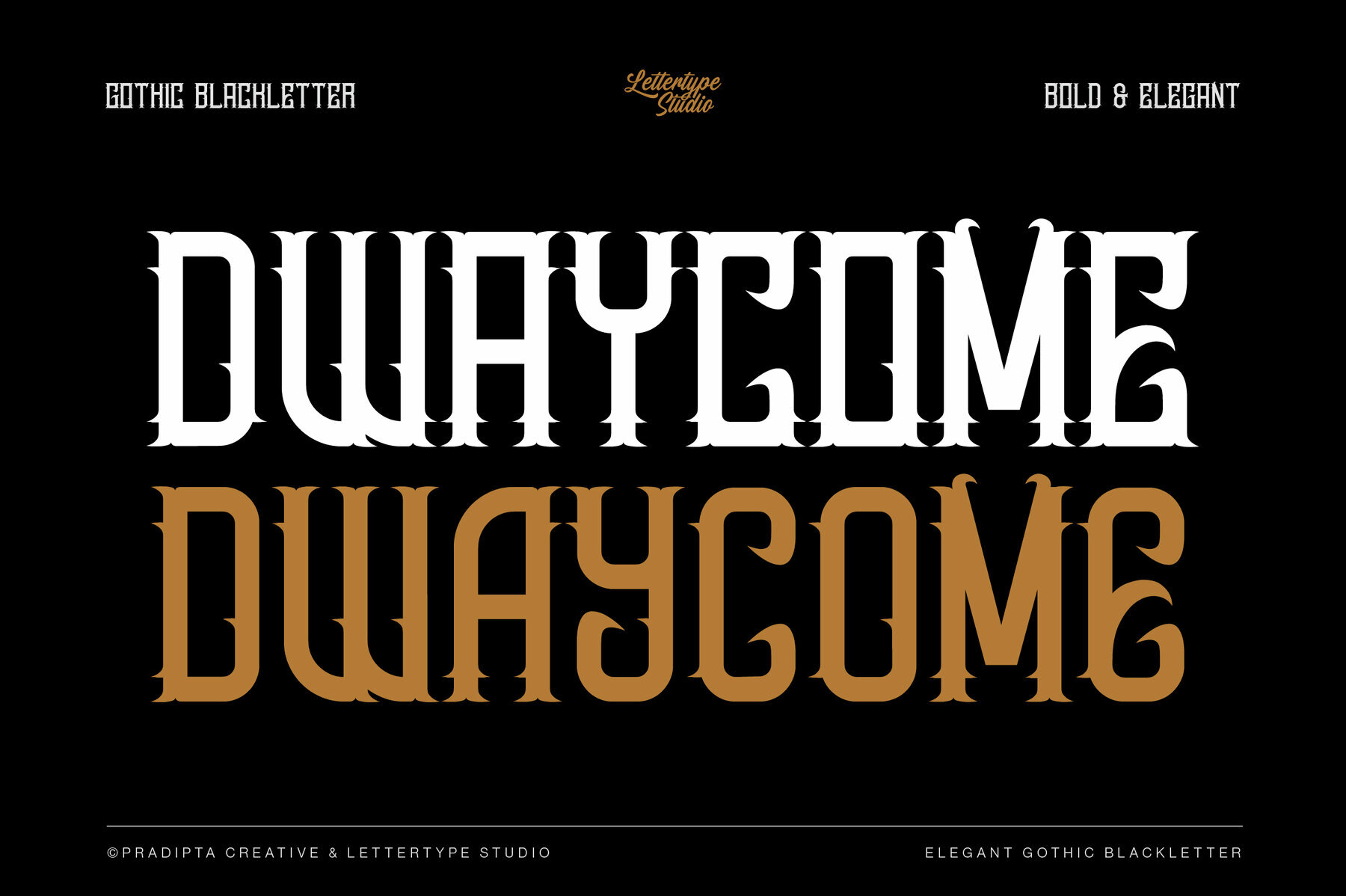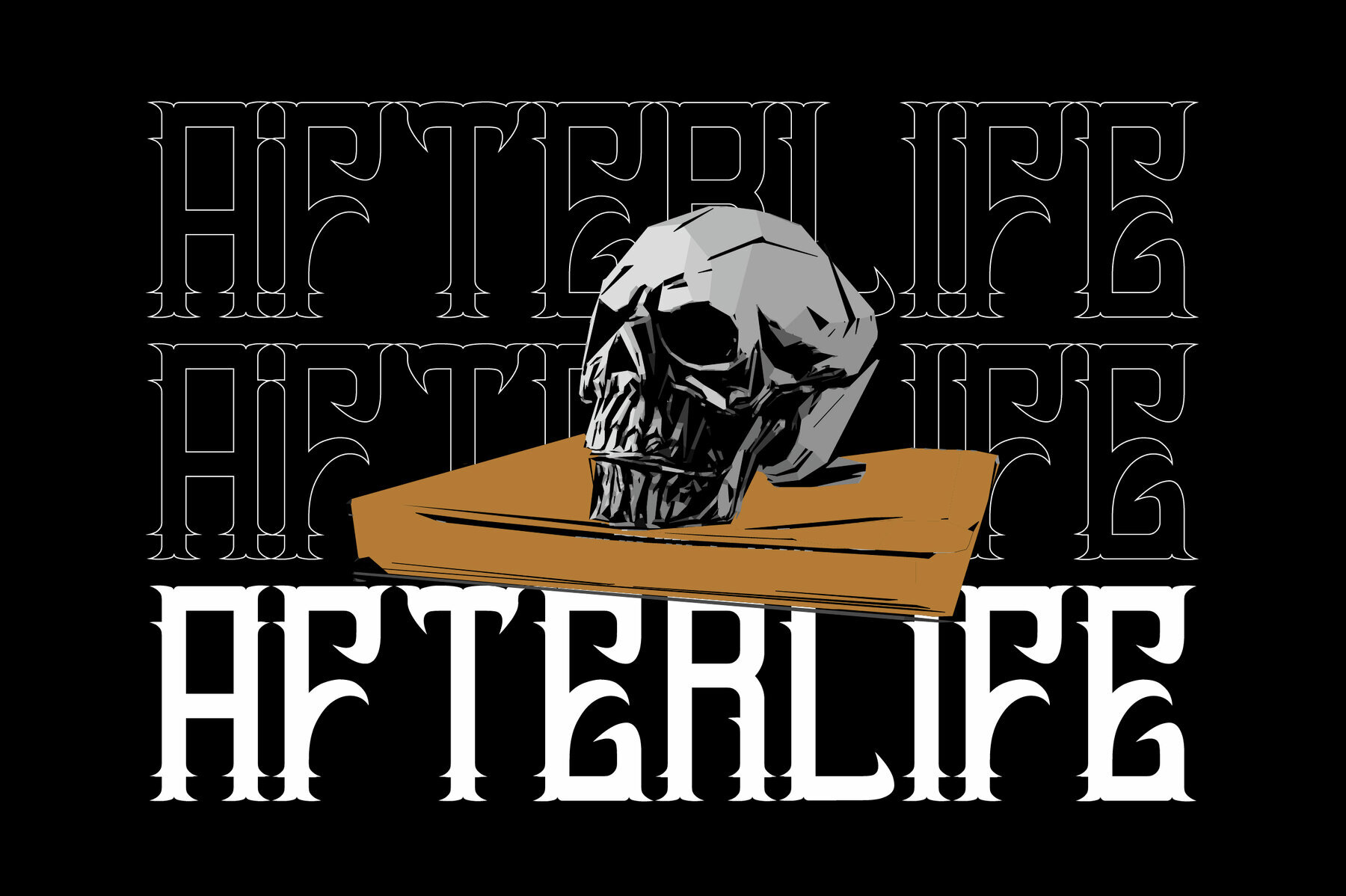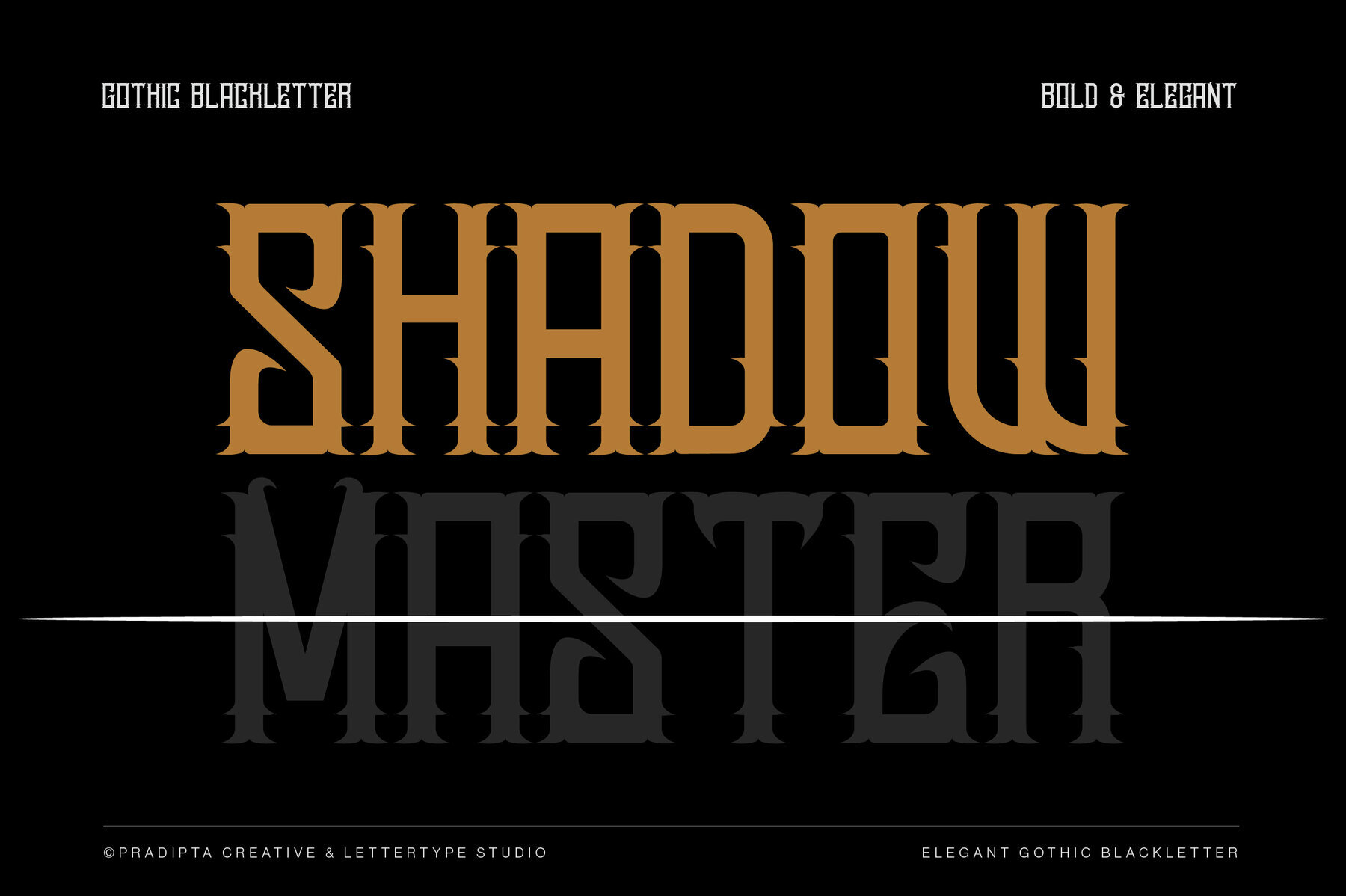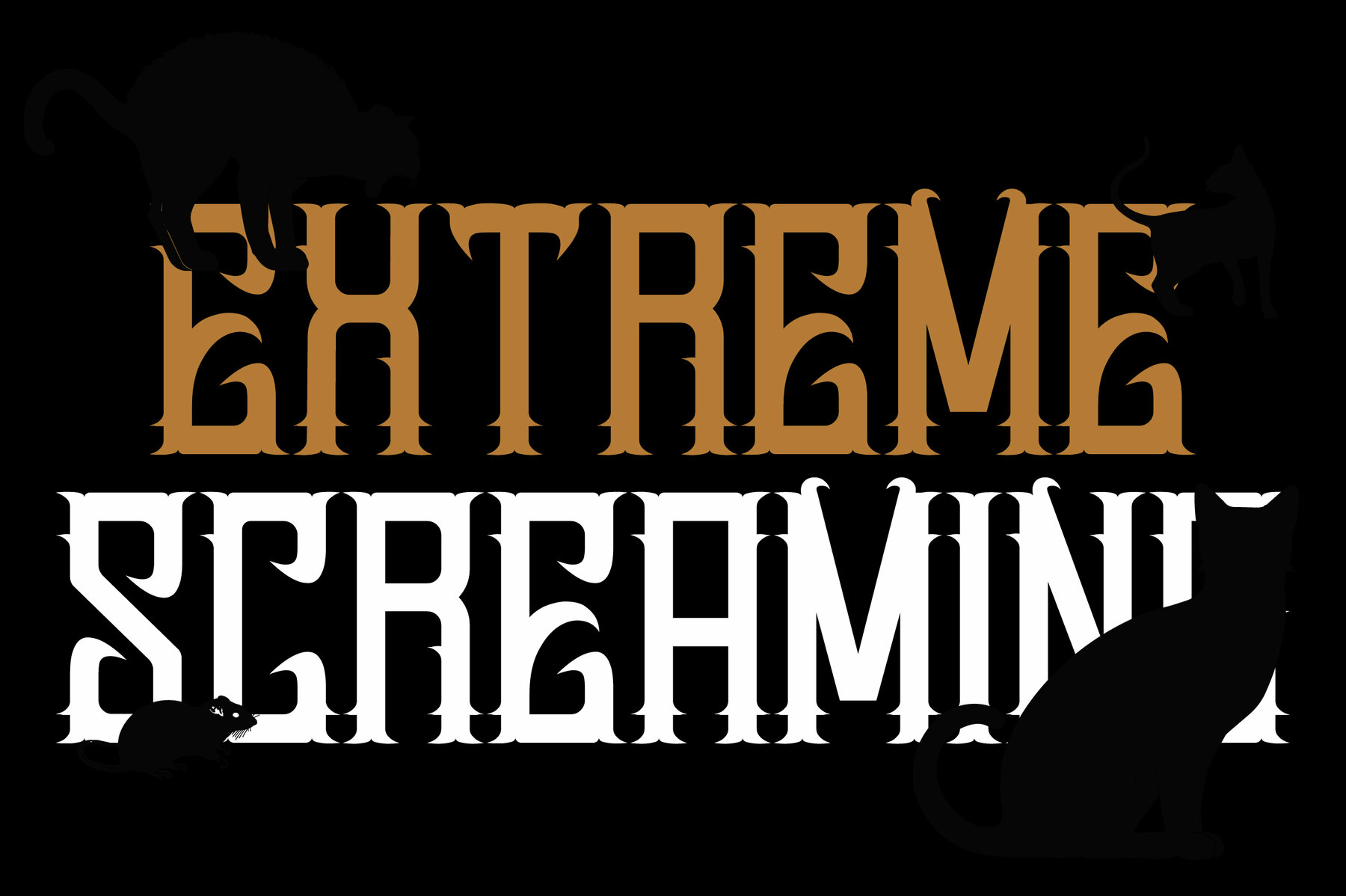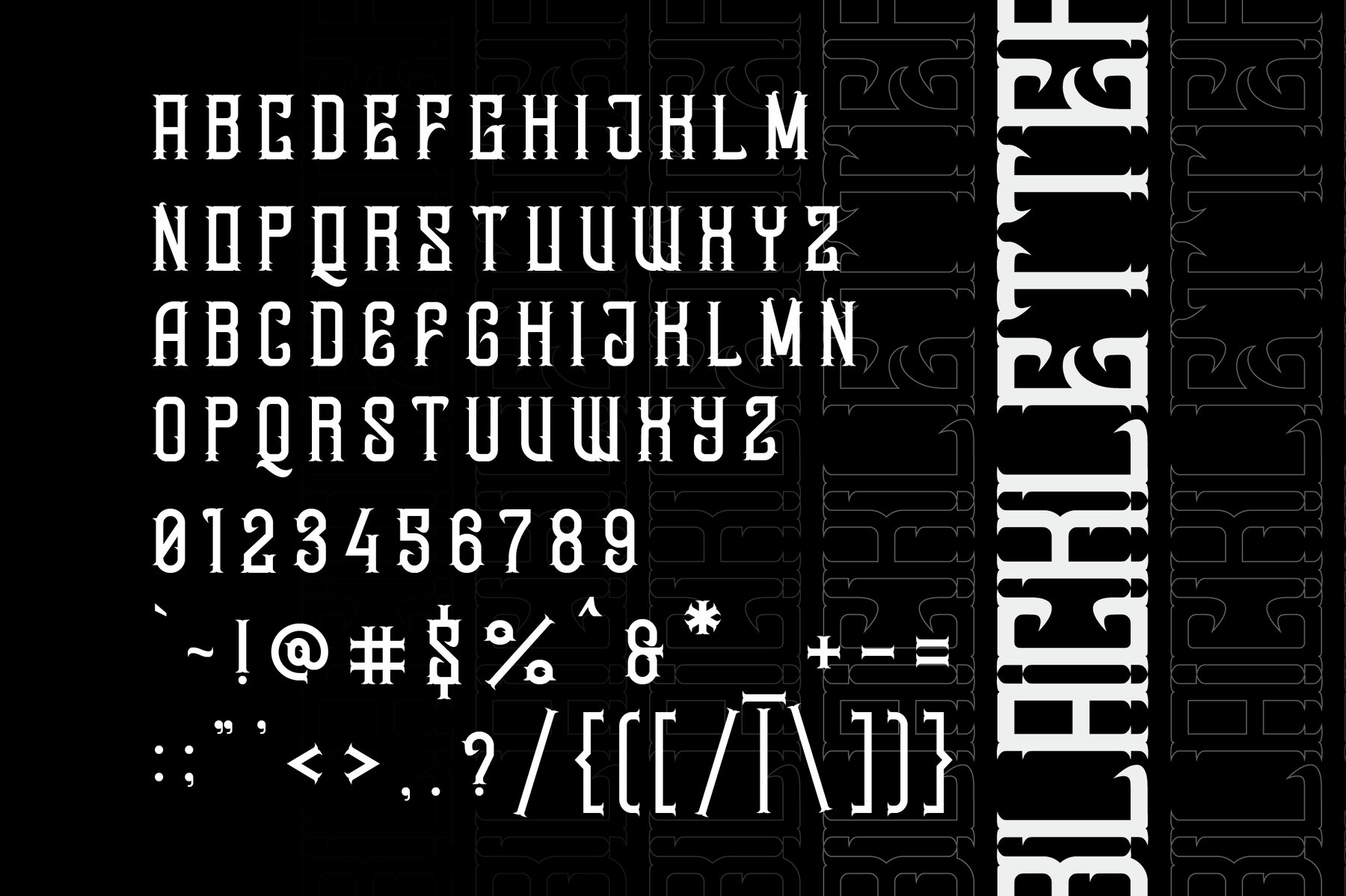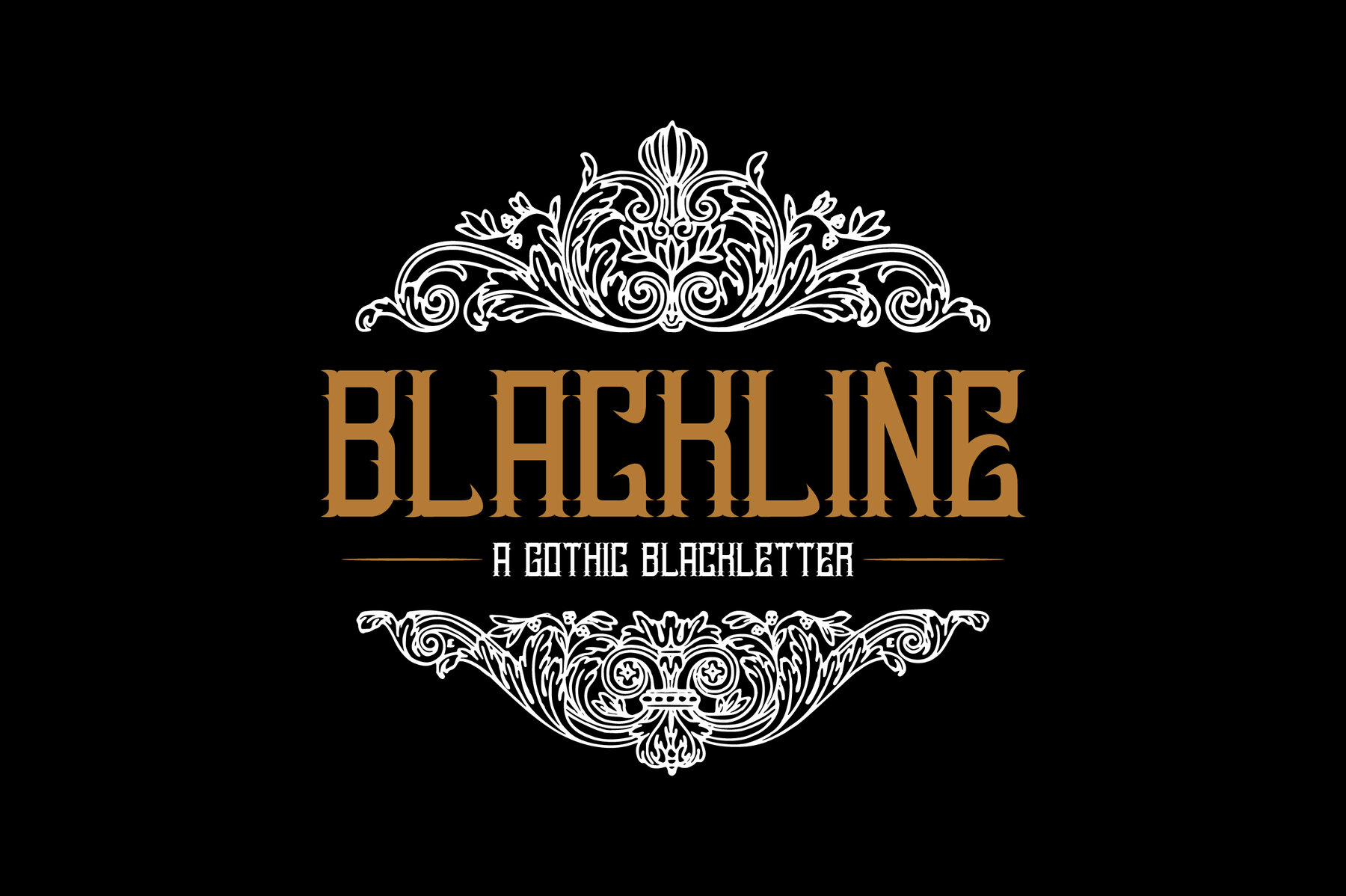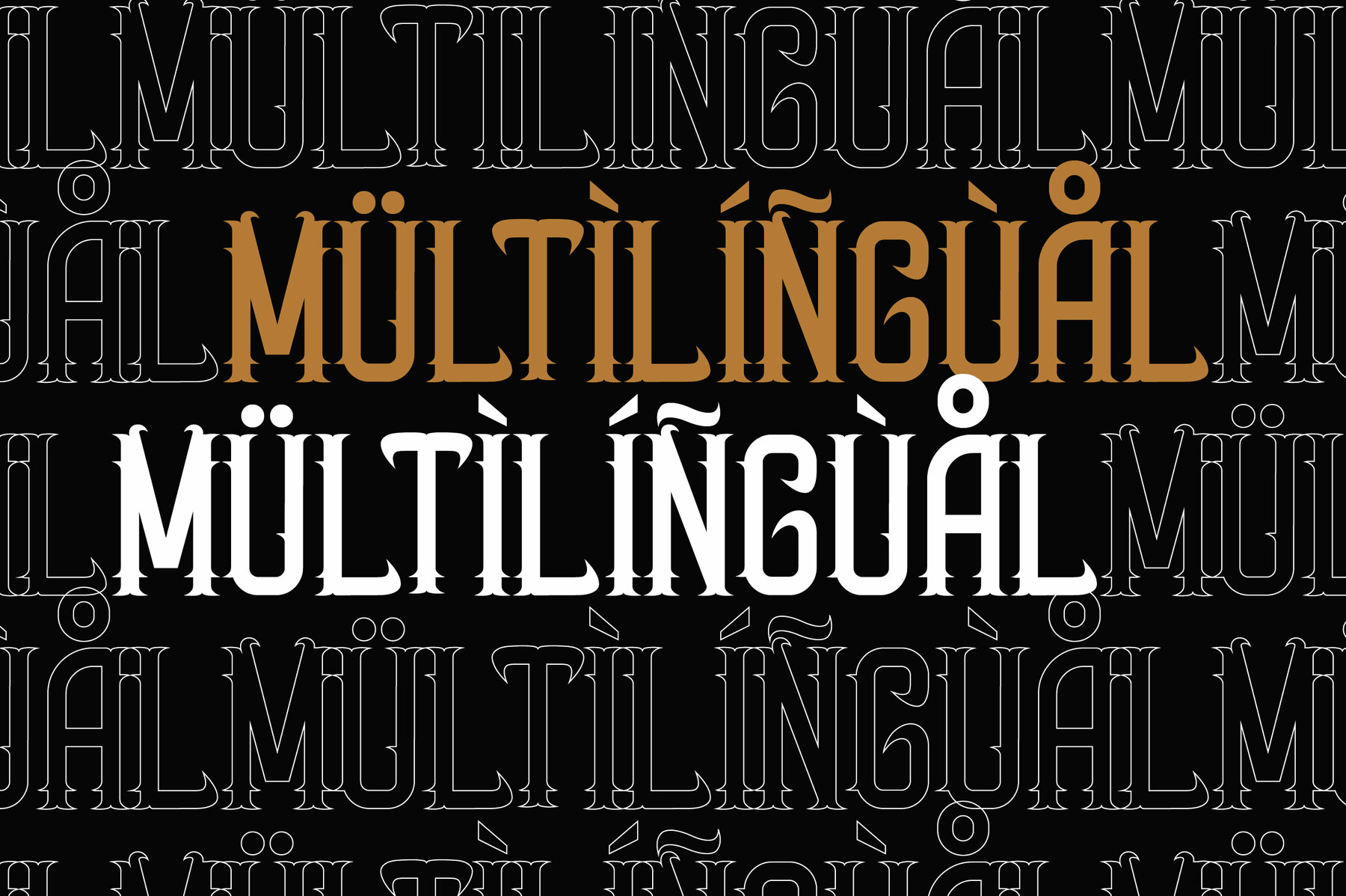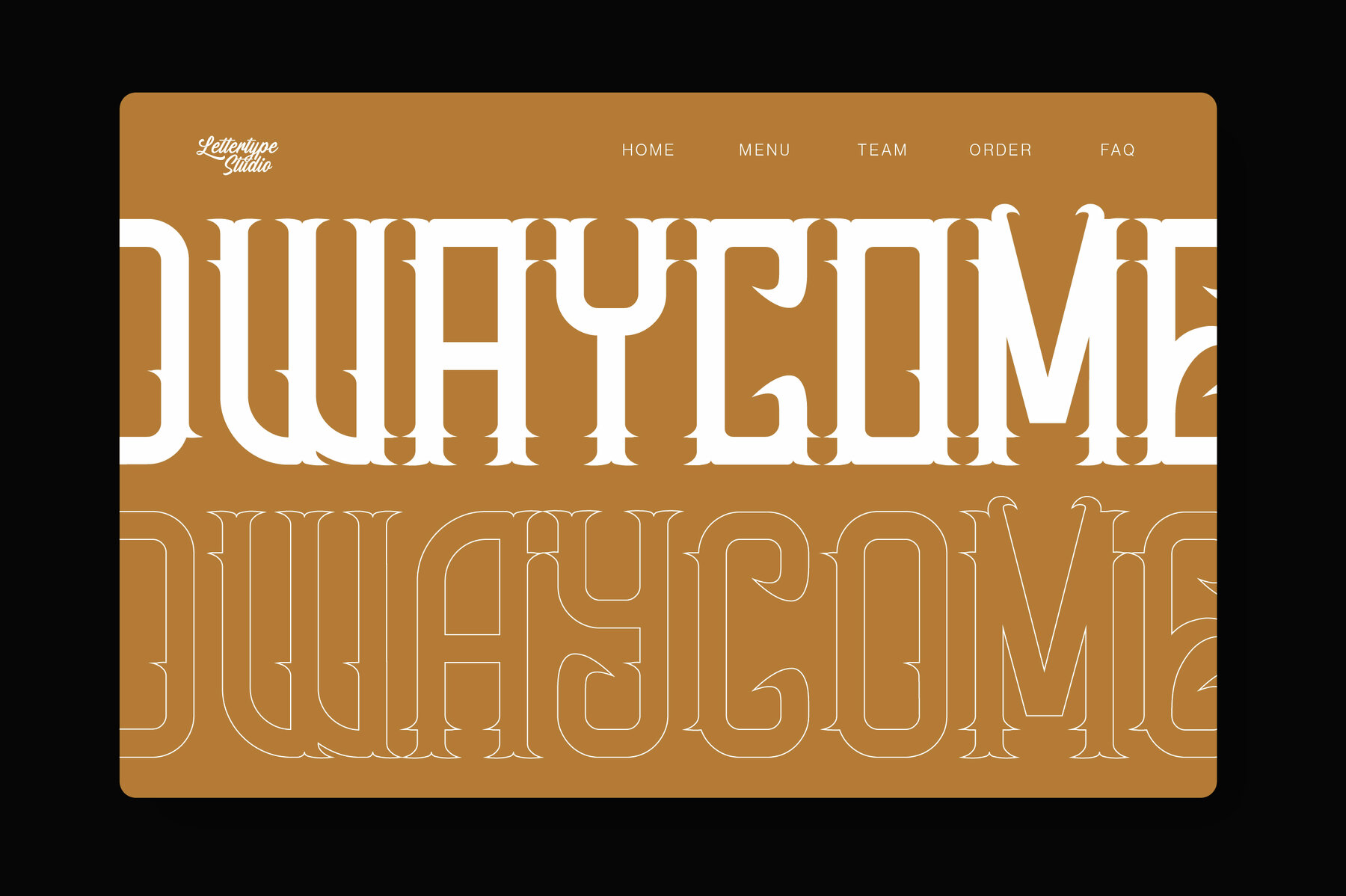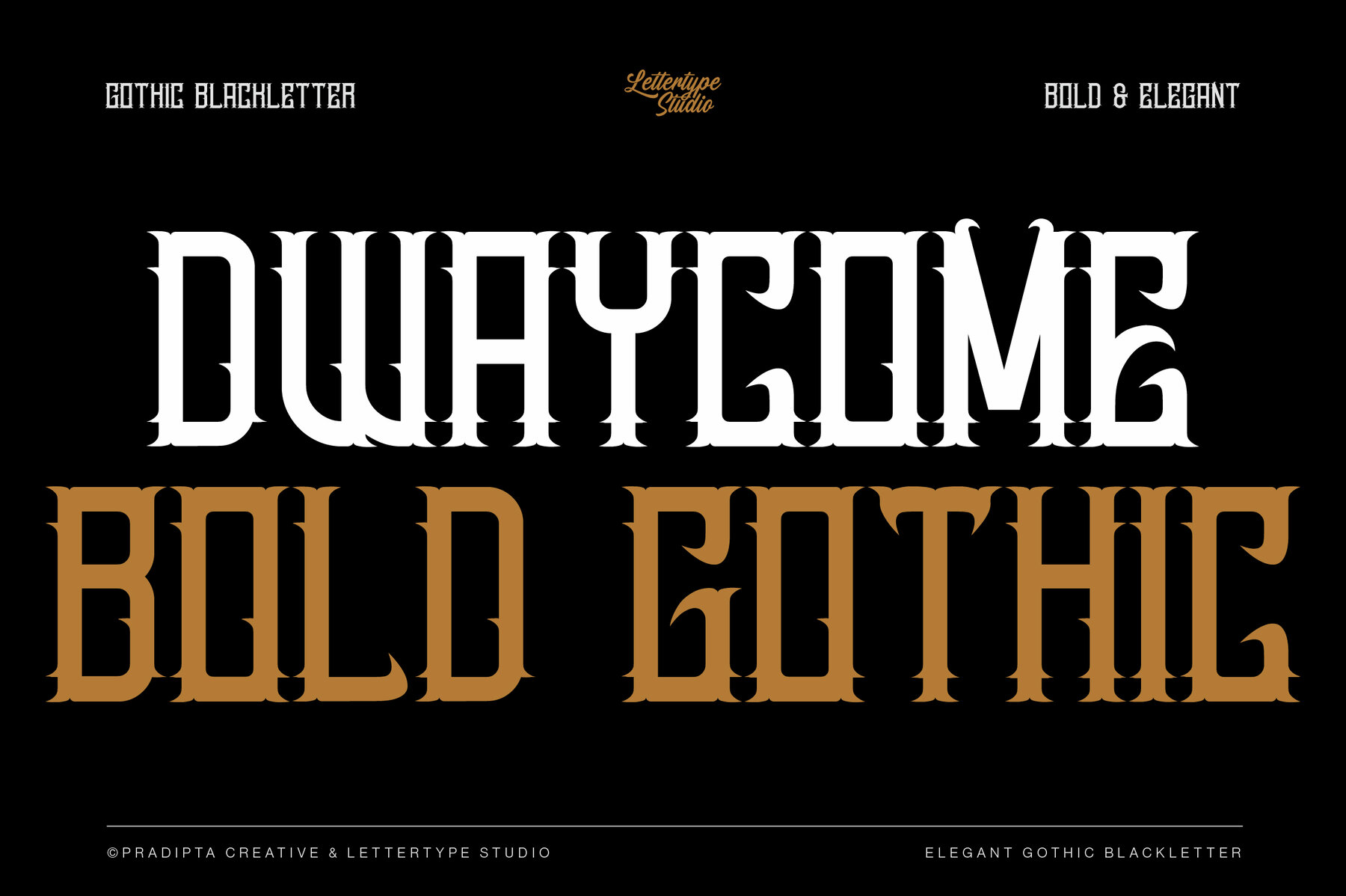
Dwaycome Font
Dwaycome Regular
Dwaycome is a captivating gothic blackletter font that fuses a rich historical lineage with modern elegance. This bold typeface makes a statement, perfect for designs that demand attention. The intricate details of blackletter typography, combined with minimalist elements, lend a distinctive flair to your creative projects, from logos to editorial designs. Dwaycome suits designers seeking to blend vintage sophistication with contemporary readability. This timeless choice is perfect for high-end projects where historical nuance meets modern design.Dwaycome Gothic Blackletter Font